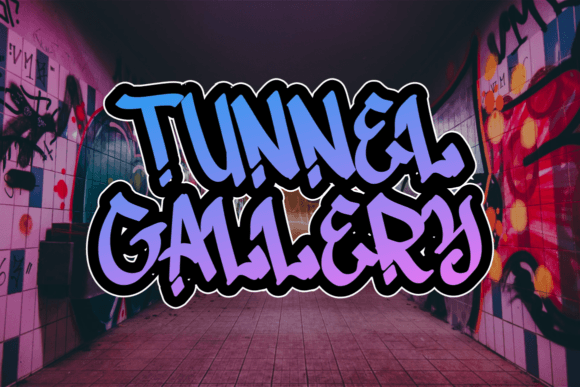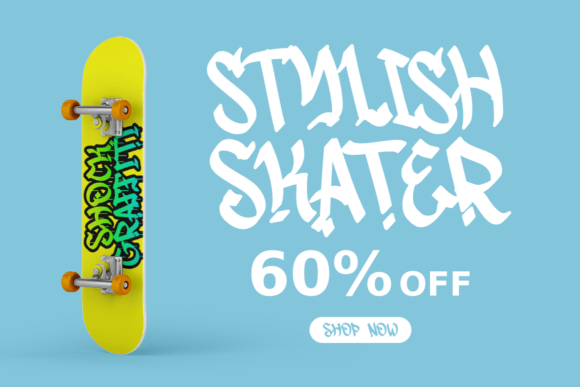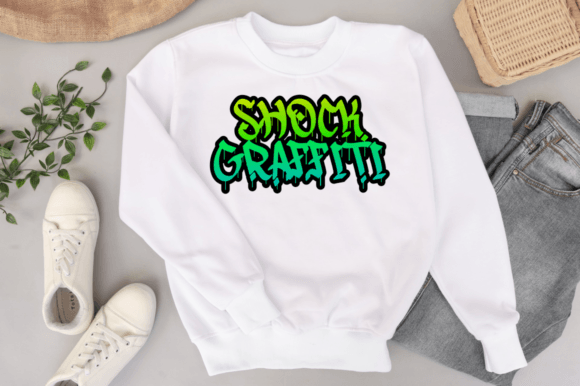
Introduction to Shock Graffiti Font
You’re scrolling through your social media feed, and suddenly, a bold, eye-catching design catches your eye. The vibrant colors, the edgy typography – it’s the perfect blend of creativity and style. As a designer, you know that finding the right font can make all the difference in bringing your vision to life. And that’s where the Shock Graffiti Font comes in – a high-quality display font that’s perfect for adding an urban touch to your designs.
Whether you’re working on a street-themed project or simply want to give your designs a bold, edgy feel, the Shock Graffiti Font is a valuable resource that’s sure to impress. With its transparent background and free download option, it’s a design resource that’s both accessible and versatile. So why settle for a generic font when you can make a statement with the Shock Graffiti Font?
Key Features of Shock Graffiti Font
- High-quality font designed for creative projects, ideal for graphic designers and artists.
- Unique graffiti-inspired style adds a touch of edginess and creativity to any design project.
Honest Review: Shock Graffiti Font
I recently stumbled upon the Shock Graffiti Font and was excited to give it a try. As a designer, I’m always on the lookout for high-quality fonts to enhance my creative projects. This free download didn’t disappoint!
- ✨ The font is incredibly bold and eye-catching, making it perfect for designs that need a bit of edginess.
- ✨ The Shock Graffiti Font is incredibly versatile and can be used for a wide range of design projects, from posters to social media graphics.
- ✨ The transparent background option is a nice touch, allowing designers to easily customize their designs.
- ⚠️ The font may not be suitable for all types of projects, particularly those that require a more subtle or elegant aesthetic.
Overall, I’m impressed with the Shock Graffiti Font. It’s a great addition to any designer’s toolkit, and the fact that it’s a free download makes it a valuable design resource. Just be sure to use it thoughtfully and in the right context.
The Shock Graffiti Font is a free download, high-quality design resource perfect for creative projects. With its unique, bold style, it’s ideal for adding a touch of edginess to your designs.
Tips for Getting the Most Out of Shock Graffiti Font
For the best results, use the Shock Graffiti Font on a transparent background to create a bold, eye-catching effect. You can also combine the font with other design elements, such as graphics and images, to create a unique and creative project.
The Shock Graffiti Font is perfect for a variety of creative projects, including logos, graphics, posters, and more. Its bold, edgy style makes it ideal for use in street art, graffiti, and other urban-inspired designs.